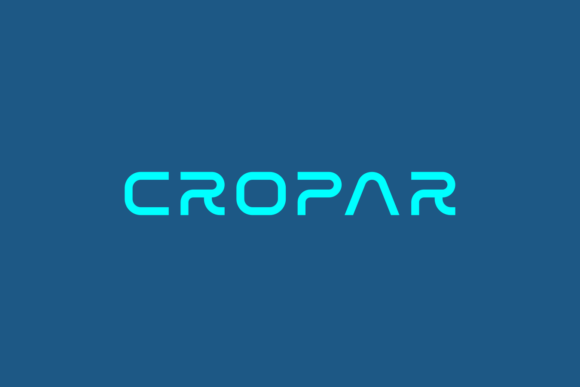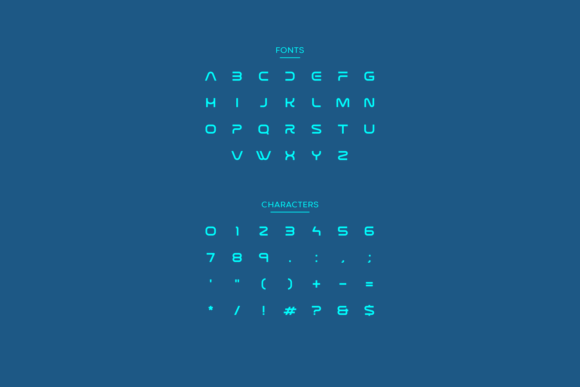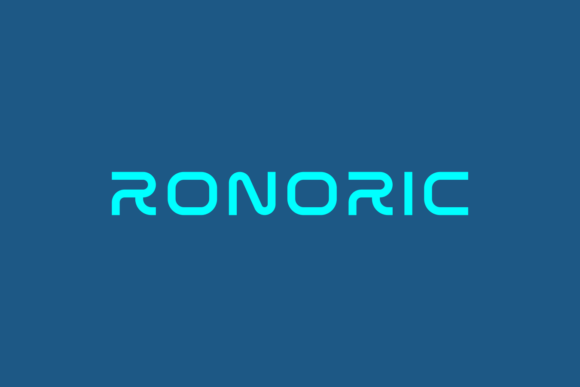
Introduction to Roparo Font
Do you remember that moment when you’re brainstorming ideas for a new project, and you stumble upon the perfect font that instantly brings your concept to life? For designers, this moment is priceless. It’s the spark that ignites creativity and sets the tone for the entire project. In this article, we’ll explore the Roparo Font, a versatile sans-serif font designed specifically for logos and branding.
What makes Roparo Font stand out is its unique, chunky personality that’s perfect for crafting bold headlines and titles. But what’s even more impressive is its exceptional legibility in sentence case, making it a valuable resource for designers looking to elevate their creative projects.
Key Features of Roparo Font
- High-quality design resource ideal for creative projects, offering a unique and elegant style.
- Unique characteristics, such as its modern and minimalist aesthetic, make it a standout choice for designers looking to add a touch of sophistication to their work.
- Designed to be highly legible, even at small font sizes, making it an excellent choice for body text and headings in creative projects.
Honest Review: Roparo Font
As a designer, I’m always on the lookout for high-quality design resources to elevate my creative projects. The Roparo Font is one of the latest additions to my design arsenal, and I must say, it’s been a game-changer.
- ✨ The font’s sleek and modern design makes it perfect for any creative project that requires a touch of sophistication.
- ⚠️ The font may not be ideal for projects that require a bold, attention-grabbing font.
- ⚠️ Some users may find the font’s minimalist design too plain for their taste.
Roparo Font is a versatile design resource that can be used in a variety of creative projects, such as graphic design, branding, and digital marketing. Its high-quality design and transparent background make it an ideal choice for designers looking to create professional-looking designs.